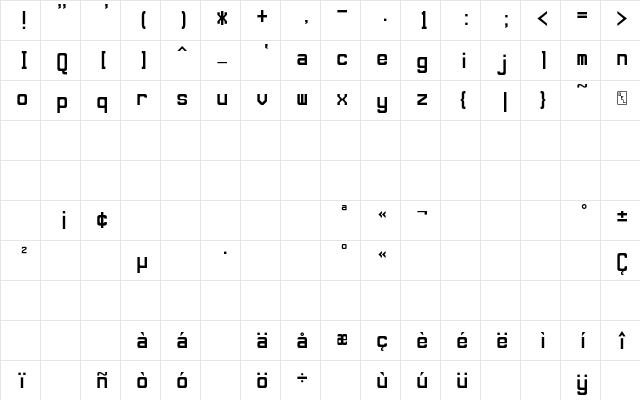
MonoDisplay Regular
Design Context for MonoDisplay Typeface
MonoDisplay is built around its visual character rather than neutral utility — its distinctive forms are designed to make an impression at display sizes.
Font Pairing: Pair with a clean neutral sans-serif for body copy to let MonoDisplay's character lead without overwhelming the composition.
Pro Tip: Treat MonoDisplay as the centrepiece of your typographic hierarchy. One strong heading set in a decorative face can carry an entire layout.